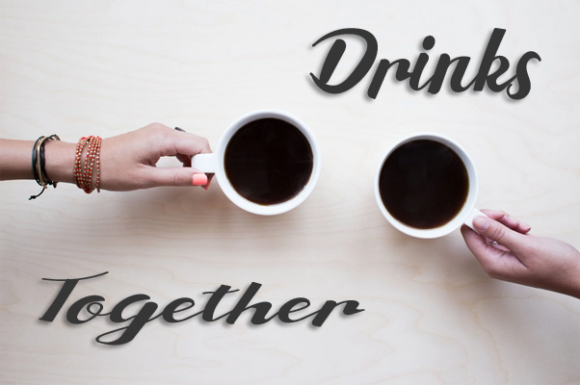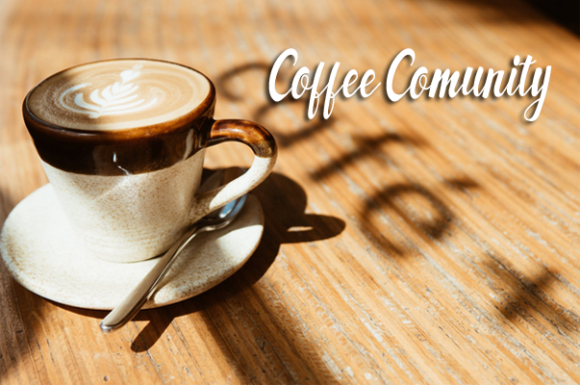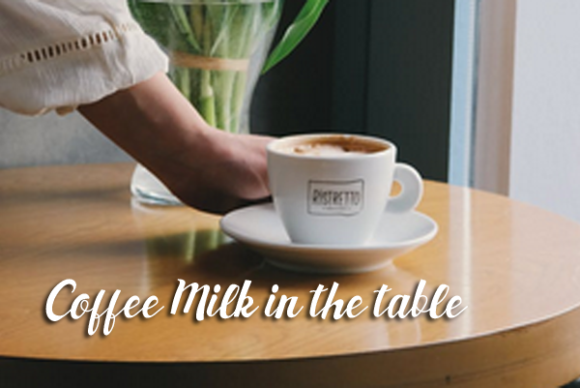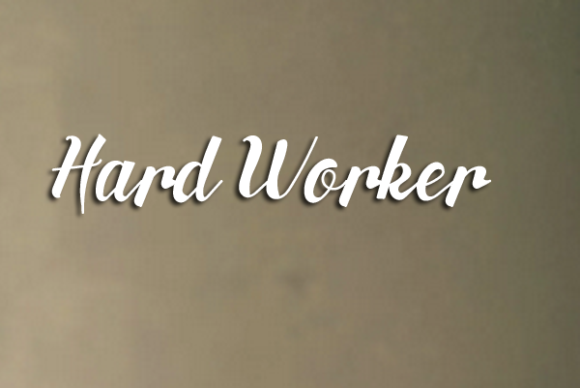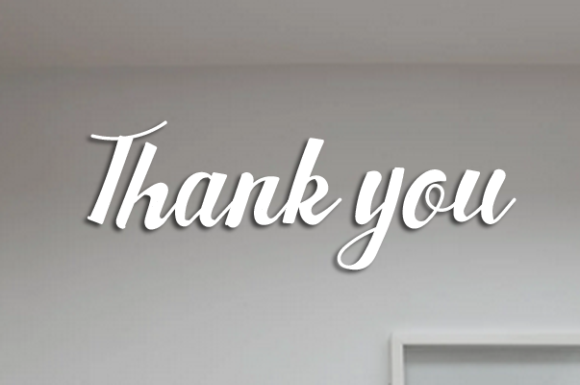
The Ultimate Guide to Black Coffee Font: Elevate Your Design with Timeless Elegance
I’ll never forget the time I was working on a branding project for a trendy coffee shop. My client wanted a logo that exuded warmth, sophistication, and a touch of playfulness. As I scrolled through font after font, nothing seemed quite right – until I stumbled upon Black Coffee. This lovely, handwritten font instantly captured the essence of the brand, and I knew I’d found the perfect fit. In this article, I’ll share my love for Black Coffee, its unique features, and provide a comprehensive guide on how to make the most of this stunning font.
An Honest Review of Black Coffee Font
So, what makes Black Coffee so special? Let’s dive into the details!
What I Love About Black Coffee ✨
- ✅ Unique and beautiful touch: Every letter has a distinct character that adds a personal touch to your designs.
- ✅ Timeless elegance: Black Coffee’s classic, handwritten style ensures your designs never go out of fashion.
- ✅ Versatility: Perfect for creating eye-catching logos, branding, quotes, and more.
- ✅ Easy to read: Despite its unique touch, Black Coffee remains clear and legible, making it perfect for body text and titles.
While Black Coffee is an exceptional font, there are a few minor considerations to keep in mind:
- ⚠️ Occasional kerning issues: As with any font, you might encounter kerning issues when pairing Black Coffee with other fonts or using it at unusual sizes.
The Story Behind Black Coffee Font
Black Coffee was designed with the intention of creating a timeless, elegant font that captures the warmth and sophistication of a classic handwritten script. Inspired by the world of coffee and the art of conversation, this font is perfect for designers looking to add a touch of personality to their work.
| Font Name | Black Coffee Font |
| Author | AA studio |
| What makes Black Coffee Font unique? | Black Coffee’s unique touch lies in its beautiful, handwritten style, where every letter has a distinct character that adds a personal touch to your designs. |
| Is Black Coffee suitable for body text? | While Black Coffee is primarily designed for titles and headings, it’s also clear and legible enough for body text in some contexts. However, it’s best used sparingly to avoid overwhelming the reader. |
Black Coffee Font is an exceptional addition to any designer’s toolkit. Its timeless elegance, unique touch, and versatility make it perfect for a wide range of projects. With this comprehensive guide, you’re ready to unlock the full potential of Black Coffee and elevate your designs to new heights!